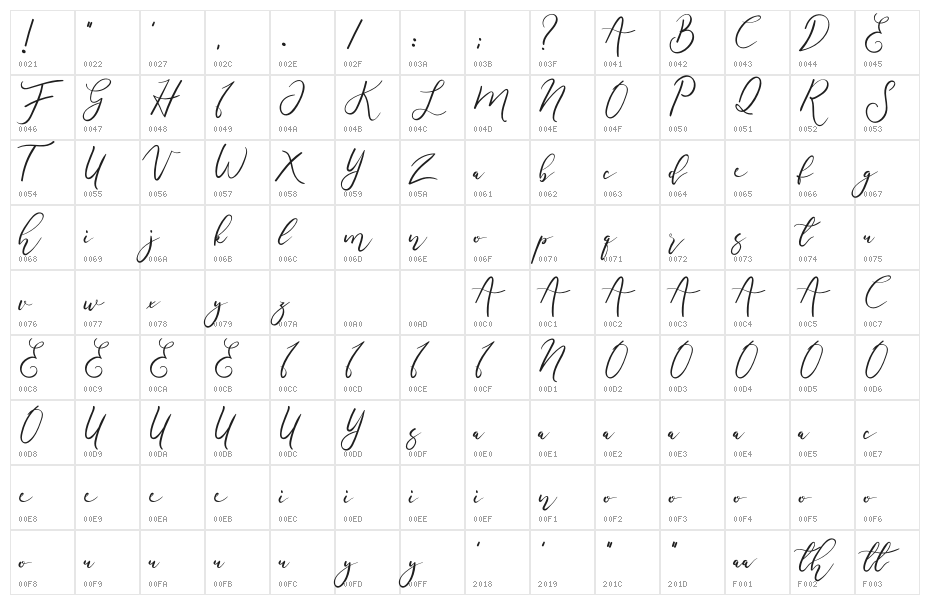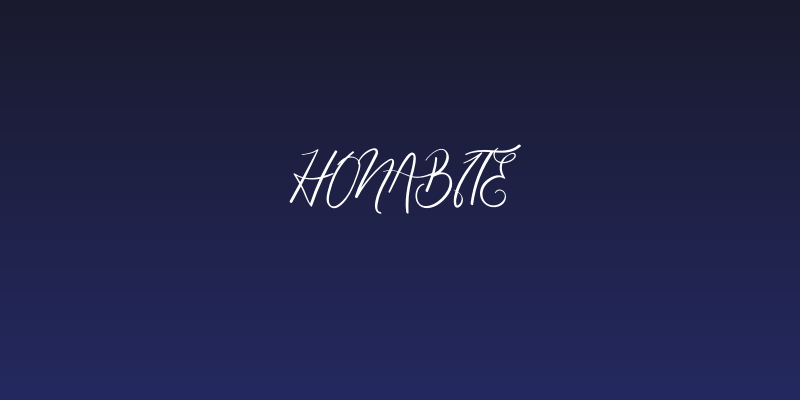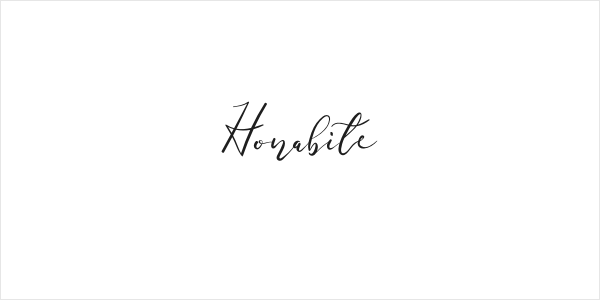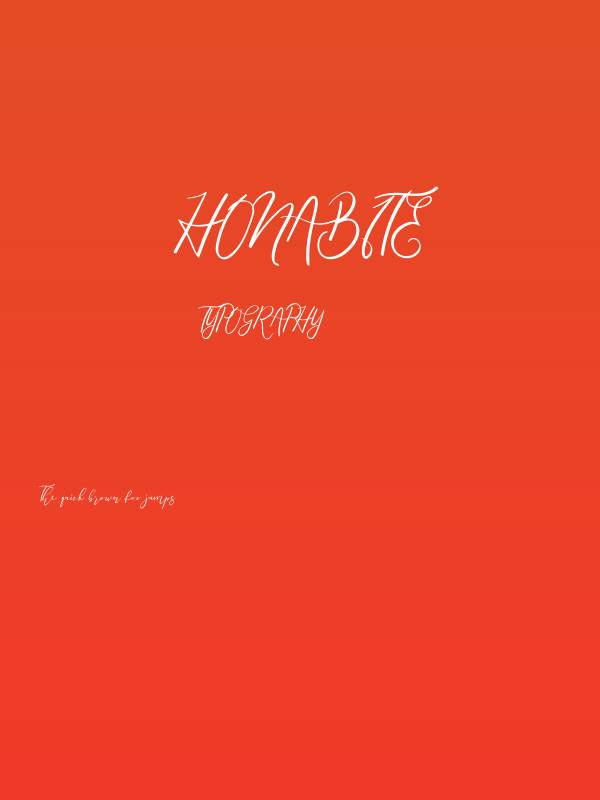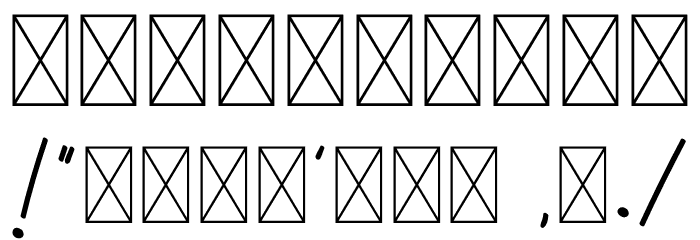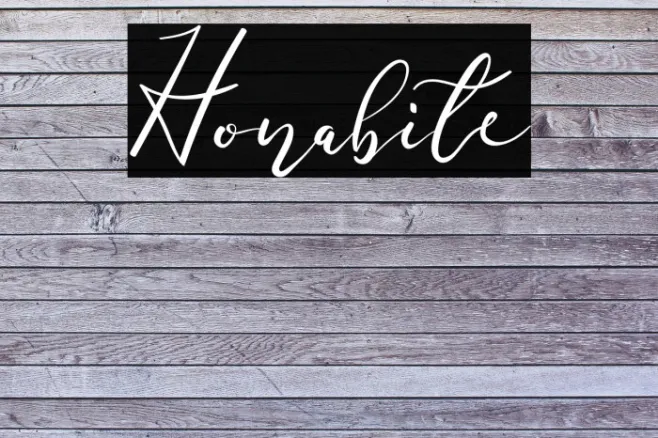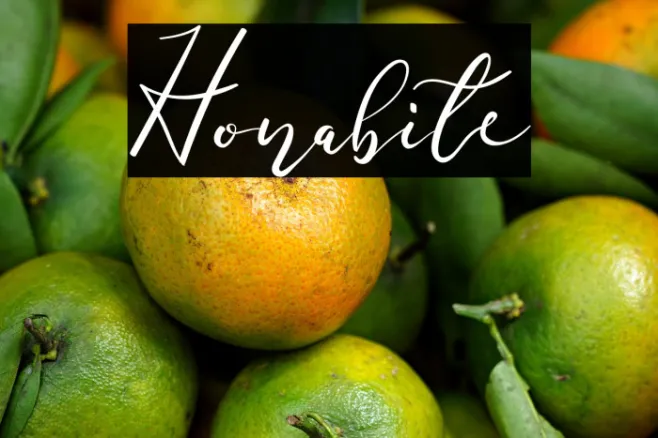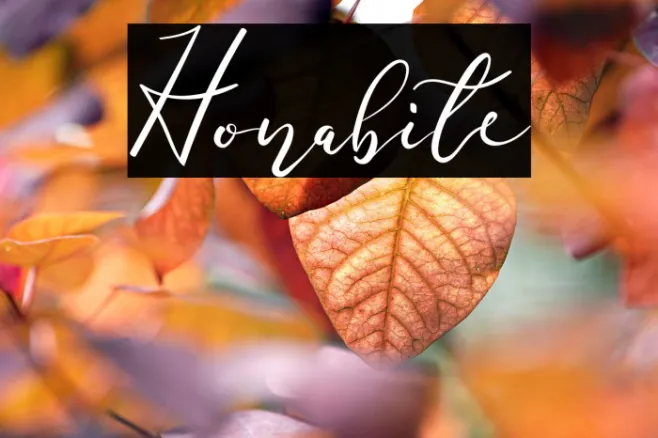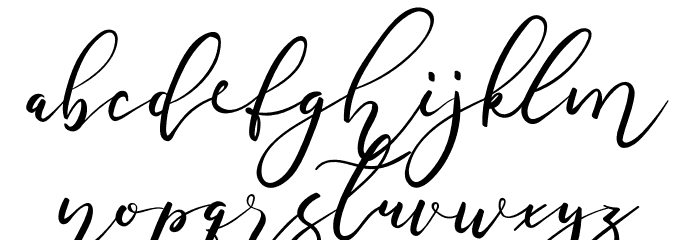
Honabite Font
Honabite Description
This font features an elegant, flowing script style with a modern touch. The uppercase letters are characterized by their sweeping curves and flourishes, giving them a sophisticated and artistic appearance. The lowercase letters maintain a consistent fluidity, with some letters like 'g' and 'y' having distinctive loops and tails. The overall design is reminiscent of calligraphy, with a hand-drawn feel that adds a personal touch to any text. The font is versatile, suitable for both formal and creative projects. It lacks numerical and special character representations, focusing solely on alphabetic characters.